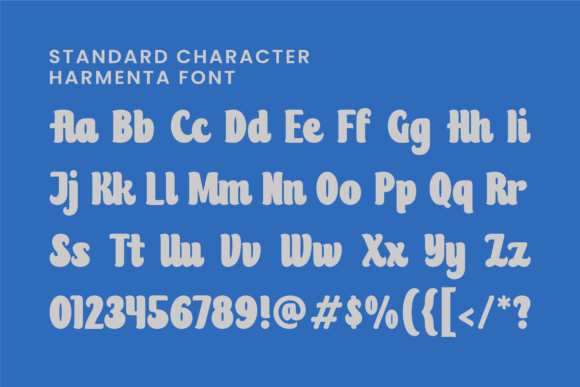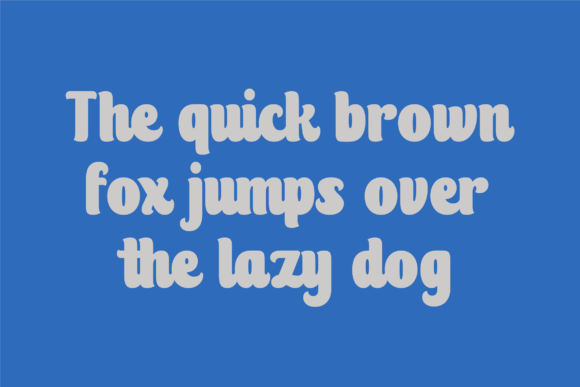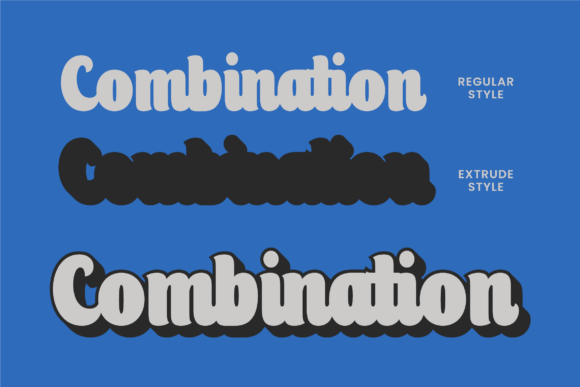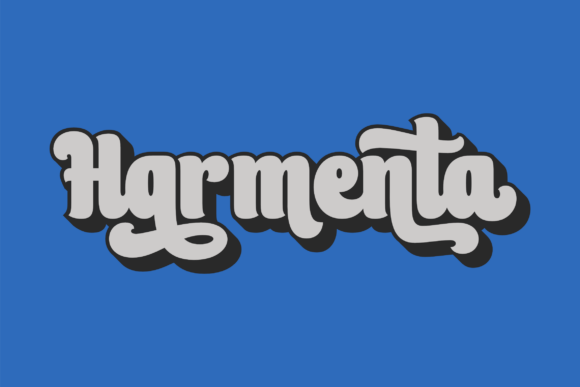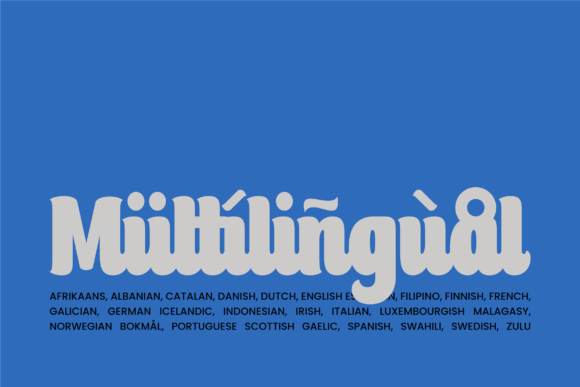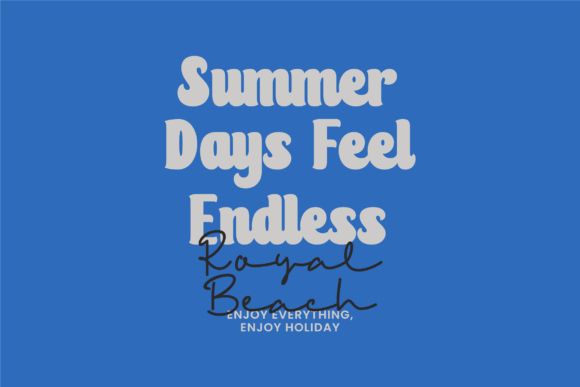
Bring Boldness and Playfulness to Your Designs with Harmenta Font
In the world of typography, a good font can make all the difference in bringing your designs to life. If you’re looking for a bold and playful script font that can add a touch of modern retro to your creations, look no further than Harmenta. This stunning font features thick, smooth letterforms with a layered style that’s sure to make your designs stand out from the crowd.
What is Harmenta Font?
Harmenta is a bold script font that’s perfect for designers and crafters who want to add a touch of personality to their work. With its unique layered style, Harmenta features thick, smooth letterforms that are both modern and retro. The font is designed to be versatile, making it suitable for a wide range of design projects, from branding and packaging to posters, logos, and social media headlines.
Key Features of Harmenta Font
- Bold and Playful: Harmenta’s bold and playful style is perfect for making a statement in your designs. The font’s thick letterforms are sure to grab attention and add a touch of personality to your work.
- Layered Style: Harmenta’s unique layered style gives the font a modern and retro feel. The layered effect adds depth and dimension to the letterforms, making them stand out from the crowd.
- Smooth Letterforms: The smooth letterforms in Harmenta make it perfect for use in a variety of design projects, from digital designs to print materials.
- Versatile: Harmenta is a versatile font that’s suitable for a wide range of design projects, including branding, packaging, posters, logos, and social media headlines.
Uses for Harmenta Font
Harmenta is a versatile font that can be used in a variety of design projects. Here are some ideas to get you started:
- Branding: Use Harmenta to create bold and eye-catching logos, business cards, and letterheads that will help your brand stand out.
- Packaging: Add a touch of personality to your product packaging with Harmenta. The font’s bold and playful style is perfect for labels, tags, and other packaging materials.
- Posters: Create eye-catching posters with Harmenta. The font’s bold and playful style is perfect for headlines, titles, and other text elements.
- Logos: Use Harmenta to create unique and memorable logos that will help your brand stand out.
- Social Media Headlines: Add a touch of personality to your social media headlines with Harmenta. The font’s bold and playful style is perfect for grabbing attention and adding a touch of personality to your posts.
Tips for Using Harmenta Font
Here are some tips for getting the most out of Harmenta:
- Experiment with Colors: Harmenta looks great in a variety of colors, so don’t be afraid to experiment and find the perfect color scheme for your design.
- Play with Size: Harmenta is a bold font, so don’t be afraid to play with size. Use the font in a variety of sizes to create visual interest and add emphasis to your design.
- Mix and Match: Harmenta looks great when paired with other fonts, so don’t be afraid to mix and match. Try pairing Harmenta with a sans-serif font for a modern and playful look.
Harmenta is a bold and playful script font that’s perfect for designers and crafters who want to add a touch of personality to their work. With its unique layered style and smooth letterforms, Harmenta is sure to make your designs stand out from the crowd. Whether you’re working on a branding project, packaging design, or social media headline, Harmenta is a versatile font that’s sure to deliver. So why wait? Download Harmenta today and bring boldness and playfulness to your designs!